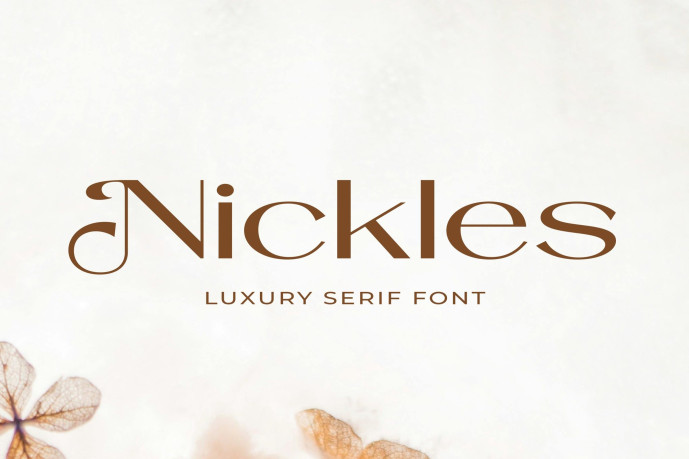
Nickles Font
Nickles Font is a luxury sans-serif font that combines modern simplicity with refined elegance. Featuring clean lines, balanced proportions, and a sophisticated aesthetic, this typeface is ideal for branding, logos, fashion editorials, packaging, social media graphics, and high-end marketing materials. Its sleek and contemporary style brings a polished, professional look to any design while maintaining excellent readability and visual appeal.